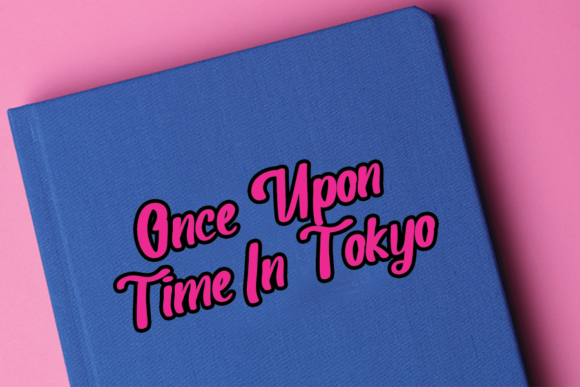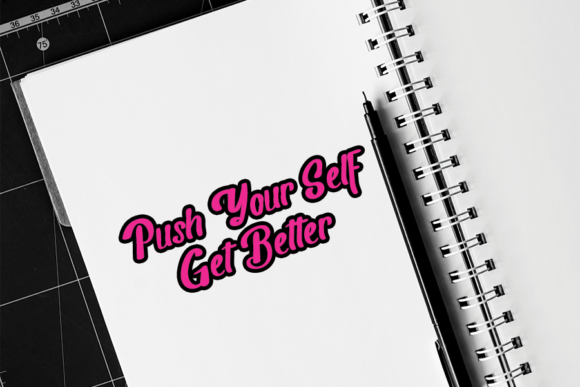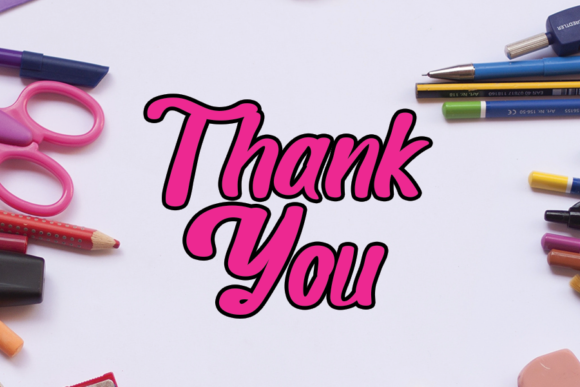
Happy Farmhouse Font
About Happy Farmhouse Font
Happy Farmhouse is a cool, brushed handwritten font. Whether you’re using it for crafting, digital designing, presentations or greeting cards making, it’s perfect!